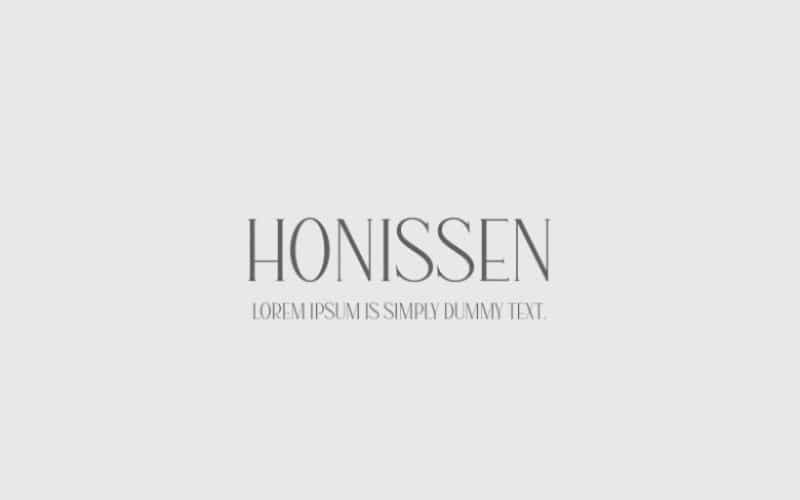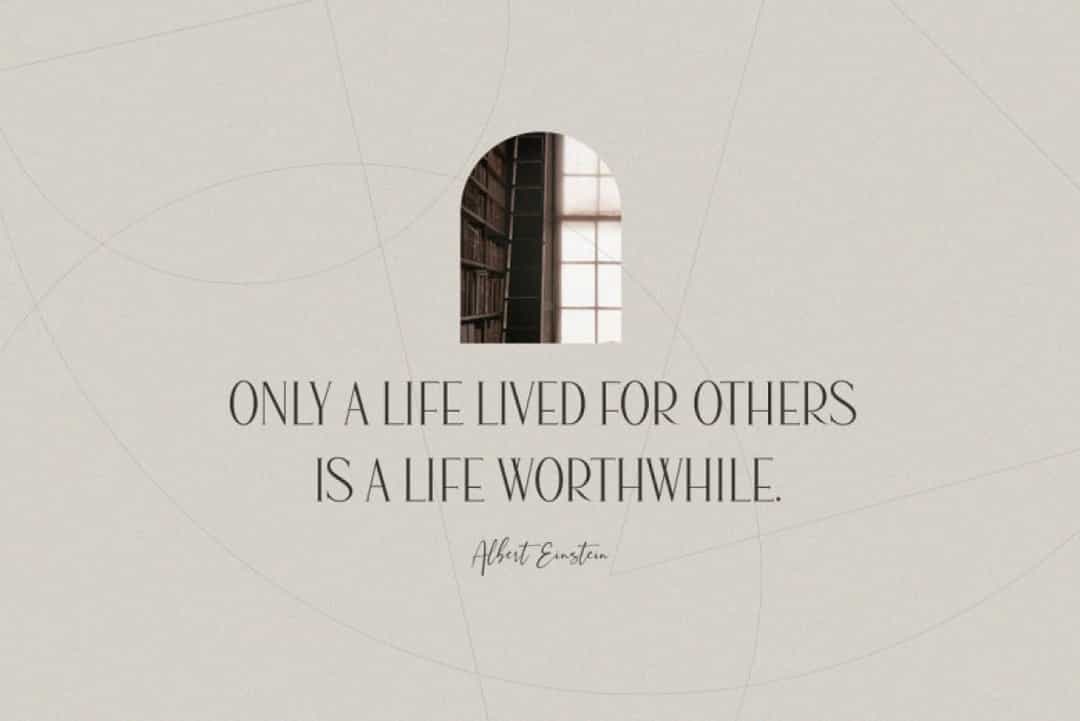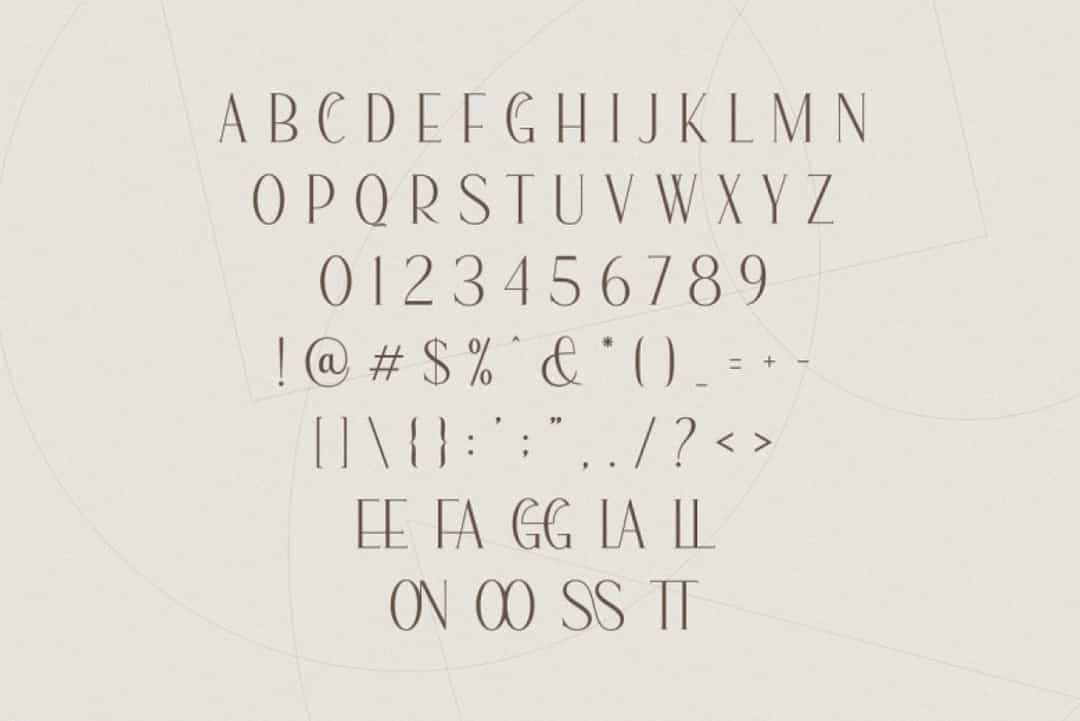
Honissen is an elegant serif typeface with timeless appeal, mixing both old and modern features. Its soft curves and high contrast glyphs lend this font masculine and feminine characteristics, creating an epic ligature effect. Honissen works great in layout designs, body copy or quotes writing as well as creating unique logos.